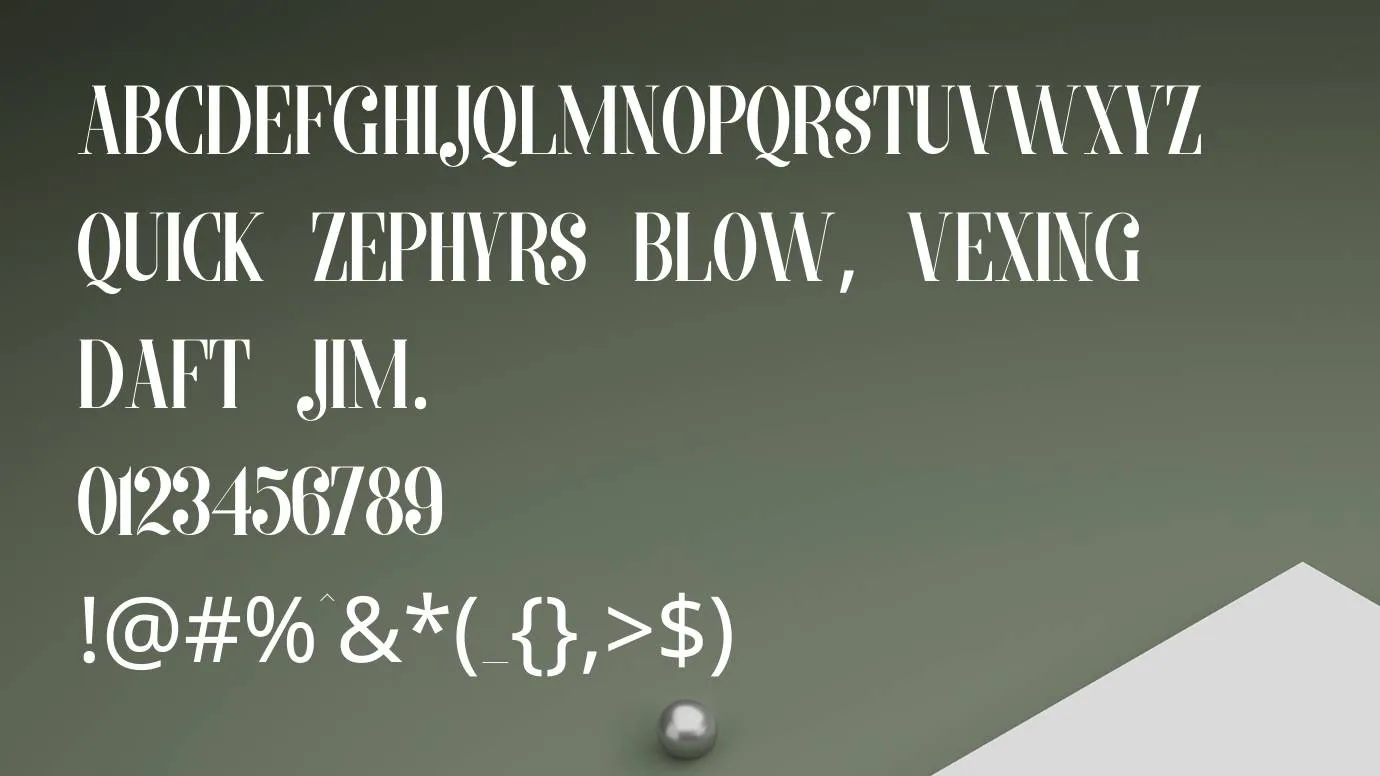
Morva font is an elegant and amazing typeface. This amazing typeface belongs to the serif typefaces. It is a very unique and stylish typeface. It is designed with a passion to make it an incredible typeface. The font family has unique stylistic characters. We can say that it is a font that can be fitted in all situations. There are a lot of designers which are using this typeface as their favorite font. There are a lot of designers who used the Morva font in their commercial designs and logos.
You can use this beautiful font in the titles and headings of the documents. Due to its bold nature, it is suitable for any kind of text content. You can use this typeface in both small and large text designs. You can create quotes that contain important messages. It is also the best typeface to use in the presentations. You can use this font for your logo designs, Posters, Book Covers, development, Video Gaming, Brochure layouts, Banners, and Business cards, Social Media Posts, Youtube Thumbnails, APP Greeting cards, Catalogs, Magazines, and Newspapers, etc.
It was designed by a famous designer Alit Suarnegara and released for the first time by Alit Design.
This font family contains one regular weight and has hundred amazing bold characters including an uppercase letter, numbers, punctuations, symbols, and other characters.
| Name | Morva Font |
| Style | Serif |
| Designer | Alit Suarnegara |
| Foundry | Alit Design |
What font is Morva font?
This amazing typeface belongs to the serif typefaces. It is a very unique and stylish typeface. It is designed with a passion to make it an incredible typeface. The font family has unique stylistic characters.
Is Morva a professional font?
The font is very popular in many professional designers. It has been used in many commercial projects. You can say that it is a professional font.